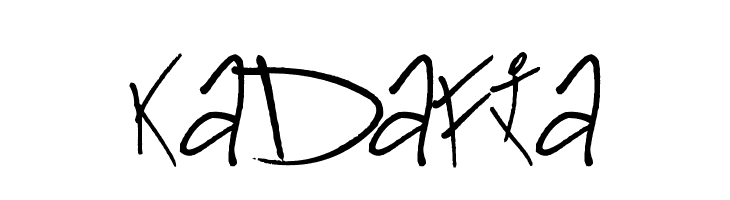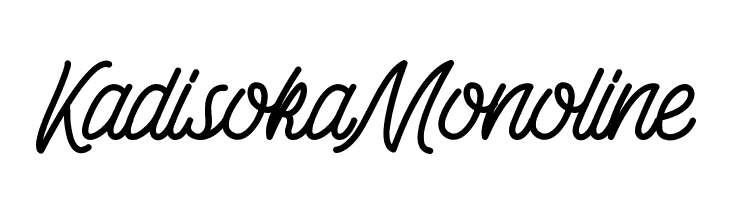
• Kadafia schriftart
( Fonts by or from www.graffitifonts.net )
A dynamic, handwritten font with fluid strokes and an expressive style.
• KADinoSlay schriftart
( KA Fonts - web.archive.org/web/20050320012407/www.geocities.com/braspal/ka/ka-fonts.html )
A bold, decorative font with ornate uppercase and traditional serif lowercase.
• Kadisoka-Monoline schriftart
( Letterhend Studio - Hendry Juanda - creativemarket.com/letterhend )
A smooth, flowing monoline script font with elegant and consistent strokes.
• KadlecUT Bold schriftart
• KADO_Kaku schriftart
( Kinema Moon Graphics - www.kinemamoon.com/ )
A geometric, angular font with a modern, digital aesthetic.
• KADO_Maru schriftart
( Kinema Moon Graphics - www.kinemamoon.com/ )
A modern, geometric font with rounded edges and consistent stroke widths.
• Kadwa schriftart
( Copyright (c) 2014-2015, Sol Matas (www.huertatipografica.com - sol@huertatipografica.com) )
A modern serif font with balanced structure and high readability.
• Kadwa Bold schriftart
( Copyright (c) 2014-2015, Sol Matas (www.huertatipografica.com - sol@huertatipografica.com) )
A bold, slab serif typeface with strong, block-like serifs and uniform strokes.
• Kaei Regular schriftart
A modern, geometric sans-serif font with clean lines and consistent stroke widths.
• Kaeshum schriftart
( Doel Creative - creativemarket.com/fajriyandi )
A classic, elegant script font with flowing, cursive letterforms.